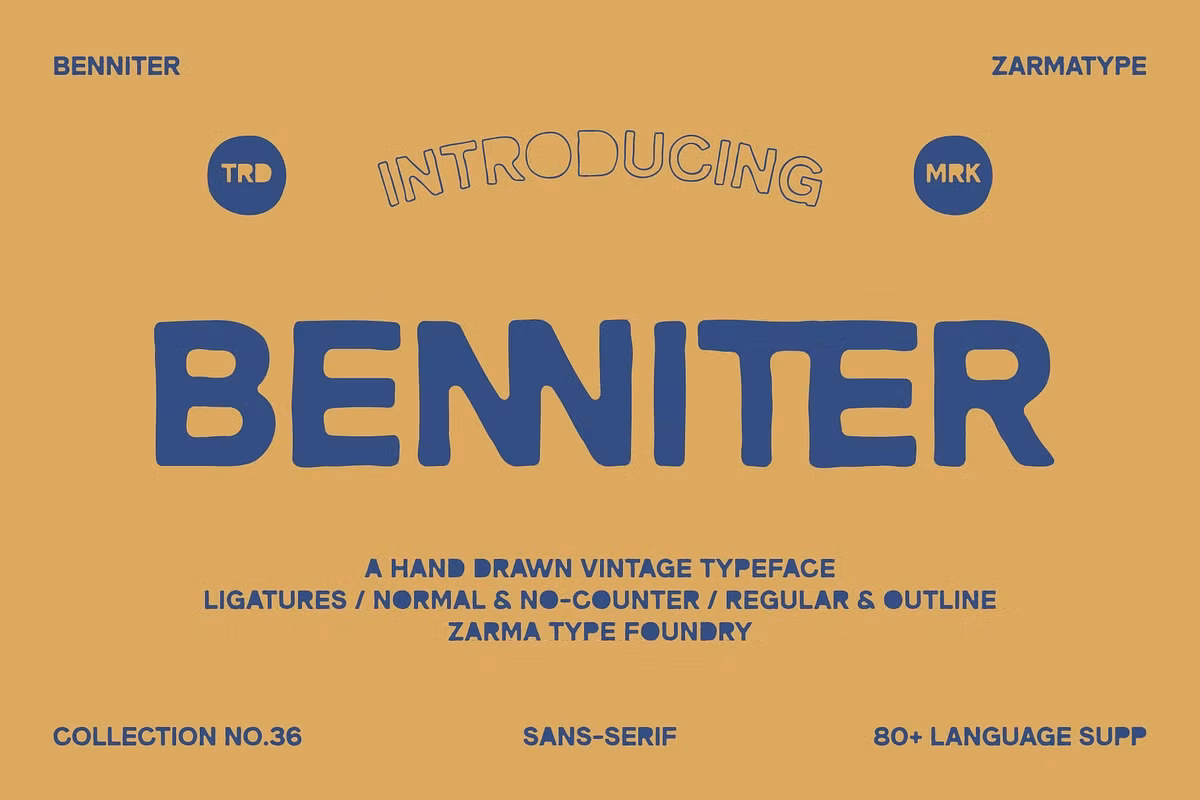
Benniter - Rough Hand Drawn Font Free Download
Benniter - Rough Hand Drawn Font Free Download is a unique and artistic typeface that brings a raw, handmade feel to your designs. Featuring rough, textured letterforms, this font is perfect for creating bold logos, posters, branding, and personal projects that need a rustic, creative touch. The hand-drawn style adds a personal, organic vibe, making it ideal for projects related to art, crafts, or creative campaigns. Whether you're designing for a casual brand, a local event, or a personal project, Benniter - Rough Hand Drawn Font Free Download allows you to experiment with its expressive style in personal projects before purchasing a commercial license. Add authenticity and character to your designs with this distinctive and beautifully crafted hand-drawn font.